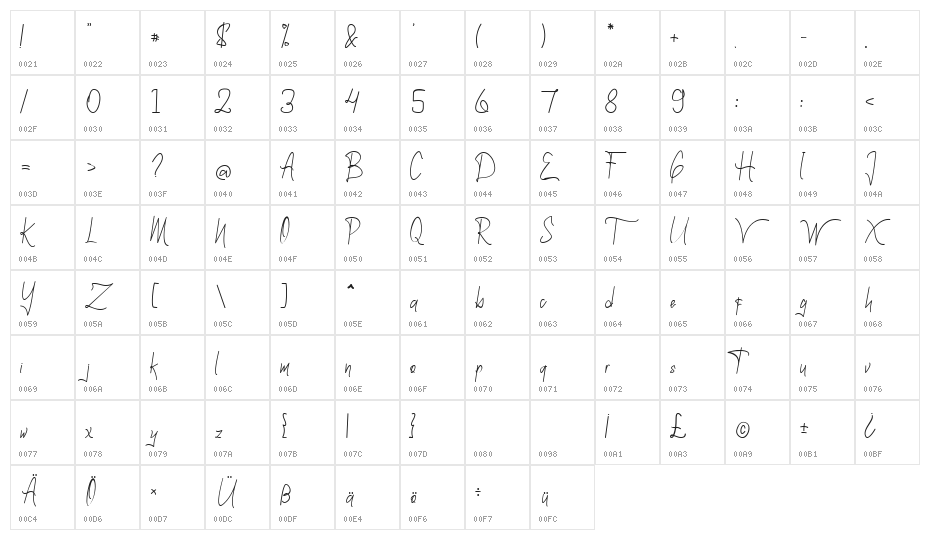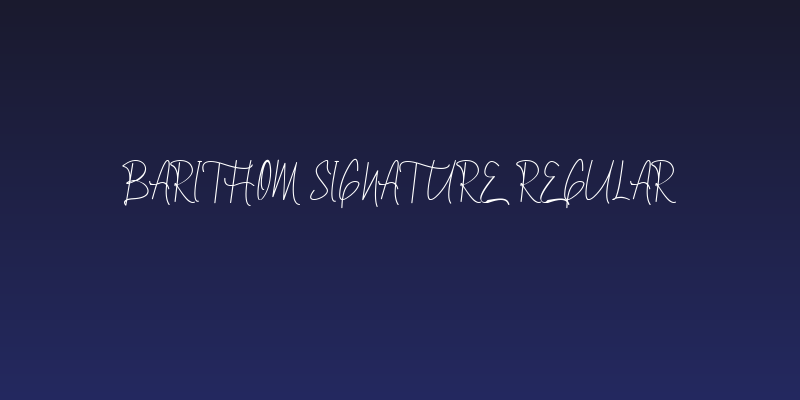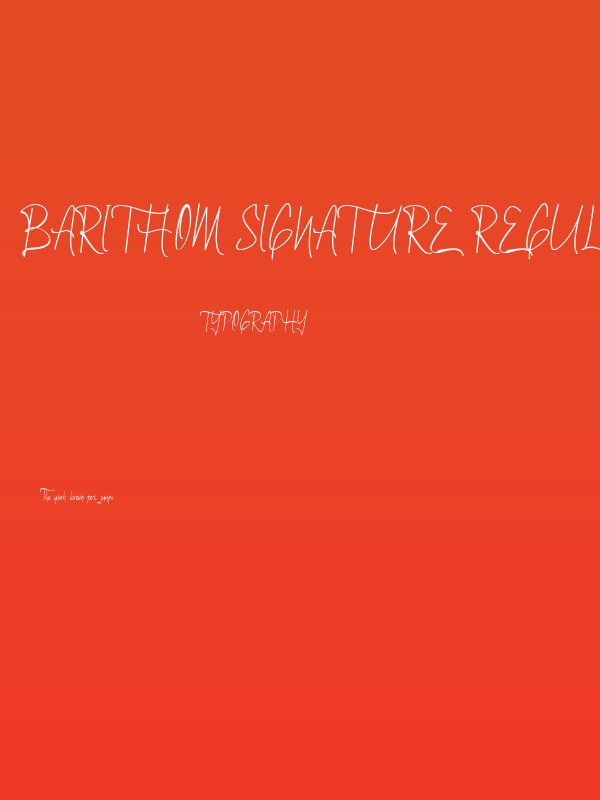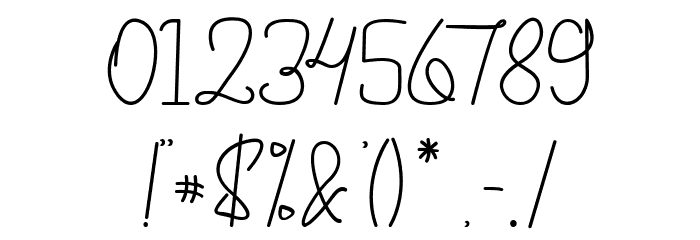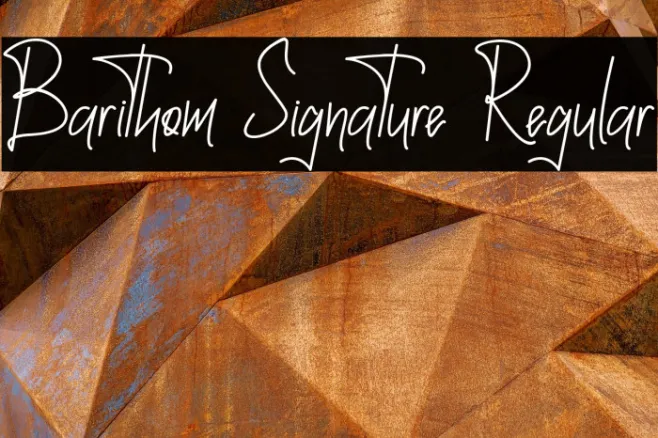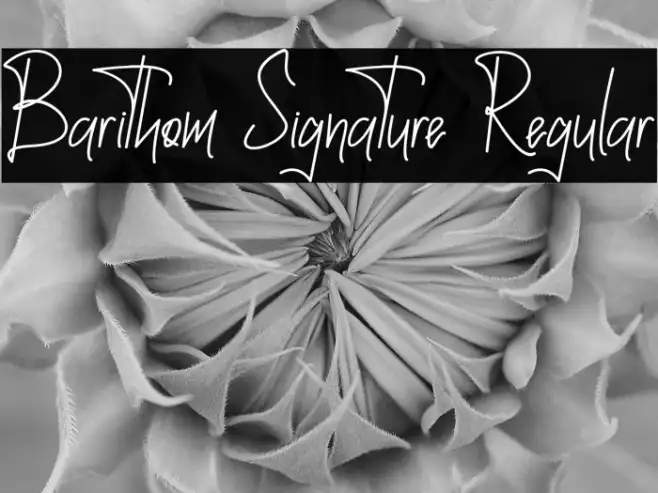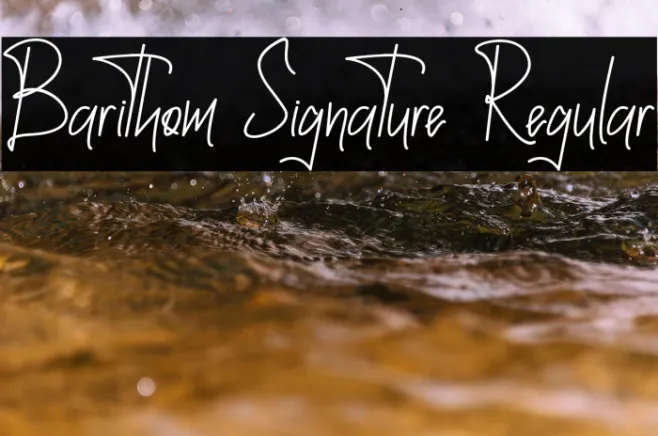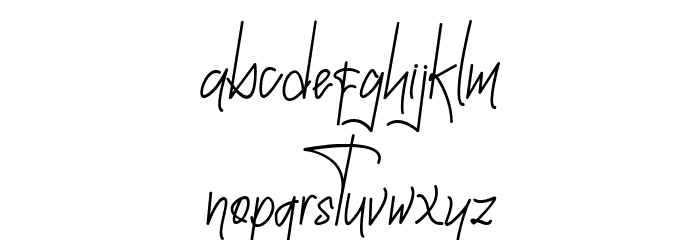
Barithom Signature Regular Font
Barithom Signature Regular Description
This font exudes a sophisticated and elegant handwritten style, characterized by its flowing and interconnected letterforms. The uppercase letters are tall and slender, with a graceful curvature that adds a touch of refinement. The lowercase letters maintain a consistent fluidity, enhancing the overall cohesive appearance. Numbers and special characters are designed with the same attention to detail, ensuring uniformity across all elements. The font's delicate strokes and smooth transitions make it ideal for projects that require a personal and artistic touch.
| Proposed Projects | Ideal for wedding invitations, personal branding, greeting cards, and artistic projects. |